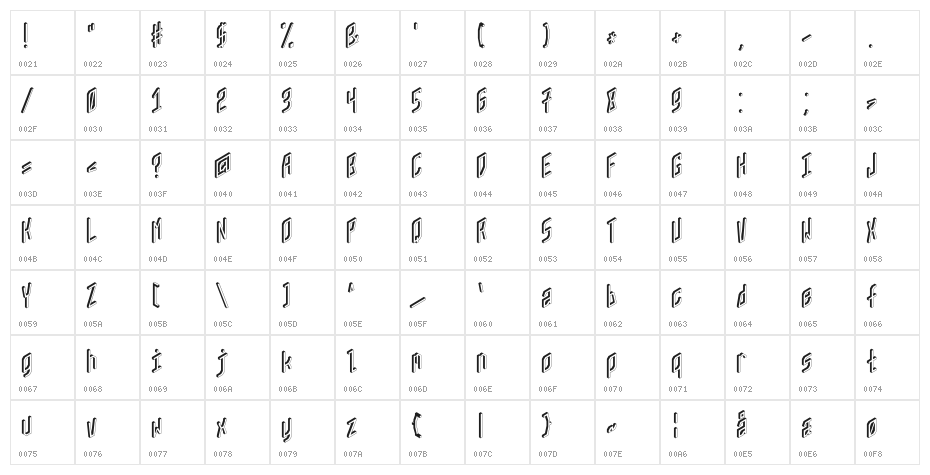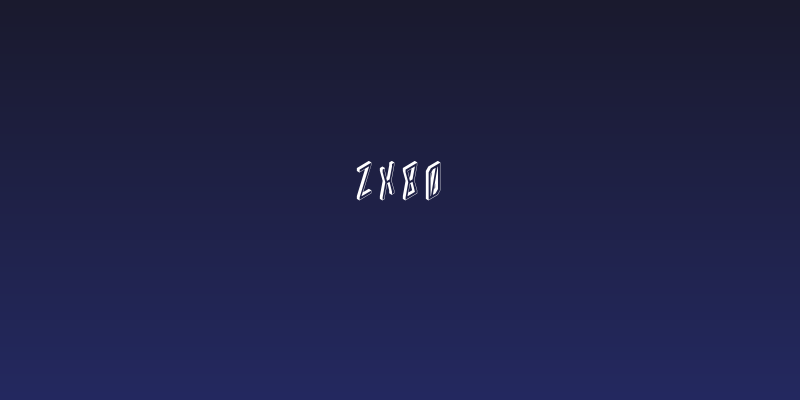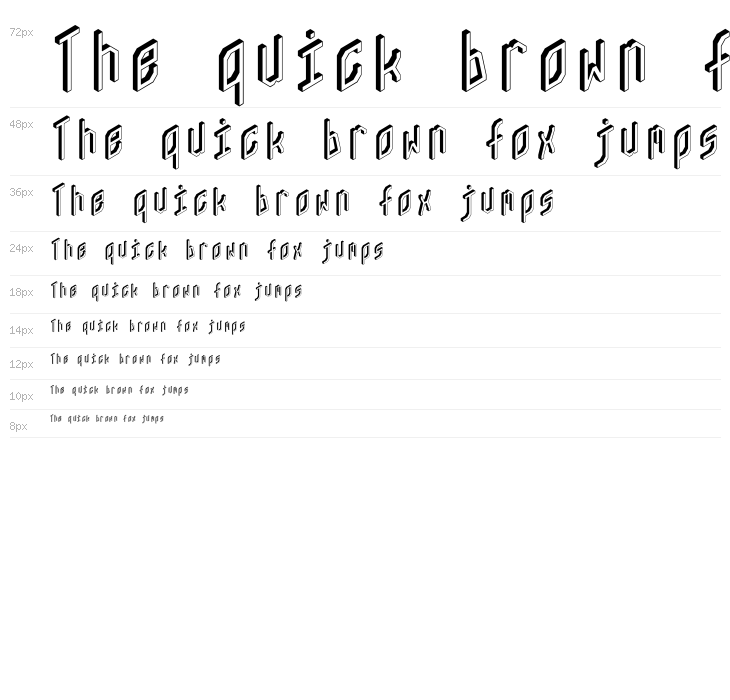
ZX80 Font
ZX80 Description
This font features a bold, three-dimensional design with a futuristic and geometric aesthetic. Each character is outlined with a shadow effect, giving it a distinct depth and a sense of movement. The angular and sharp edges contribute to its modern and edgy appearance, making it stand out prominently. The uppercase and lowercase letters maintain a consistent style, while the numerals and special characters are designed to complement the overall look. The font's unique style is ideal for projects that require a strong visual impact and a contemporary feel.
| Proposed Projects | Ideal for tech-related branding, video game titles, posters, and modern advertising campaigns. |